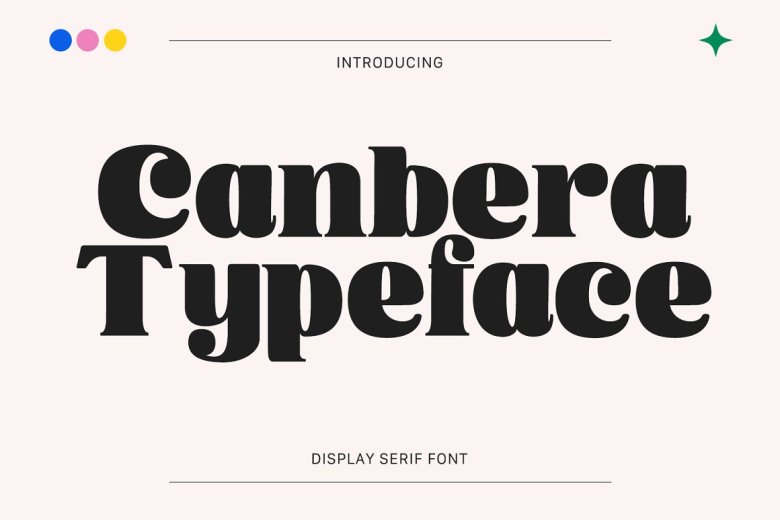
Canbera Font
Canbera is Old style typeface. Its funky, round, bright-contrast and bold capitals with retro flavour are perfect for displayed head text Logotype poster just about anything you could think of…. PUA encoded which means you can access all of the cute swashes, glyphs and extras with ease!
Canbera Serif Font